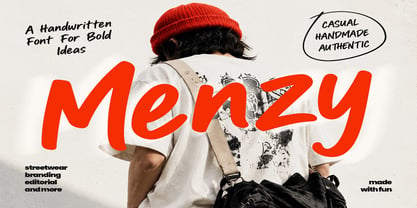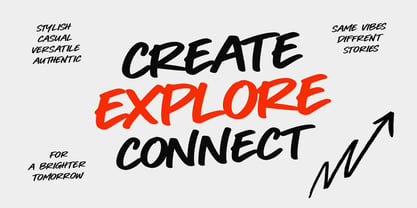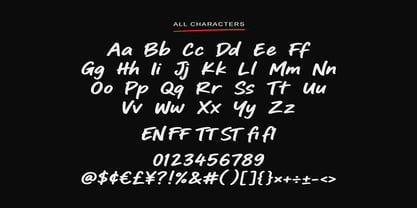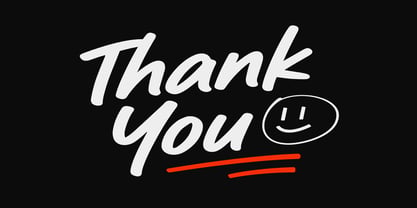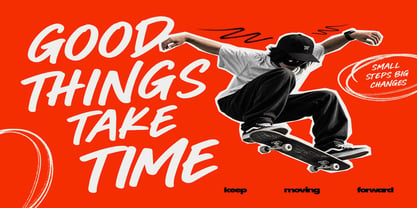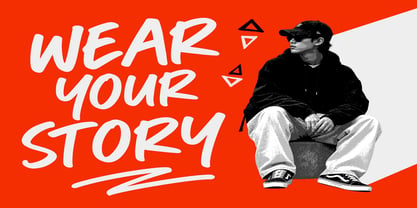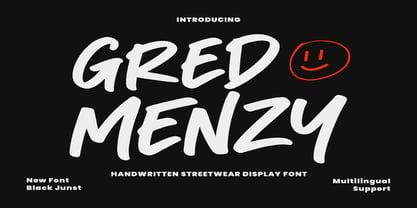
Gred Menzy
by Black Junst
The Gred Menzy Font Family was designed by Maulana Semar and published by Black Junst. Gred Menzy contains 1 styles. More about this family
Gred Menzy is a bold handwritten display font inspired by expressive brush lettering and contemporary streetwear culture. Its energetic strokes and organic letterforms create a strong handmade personality while maintaining excellent impact at display sizes.
Designed for designers who want their typography to stand out, Gred Menzy is ideal for streetwear branding, apparel graphics, t-shirts, logos, posters, merchandise, packaging, album artwork, advertising, and social media campaigns.
Its raw handwritten character brings a youthful, confident, and authentic visual voice to both personal and commercial projects.